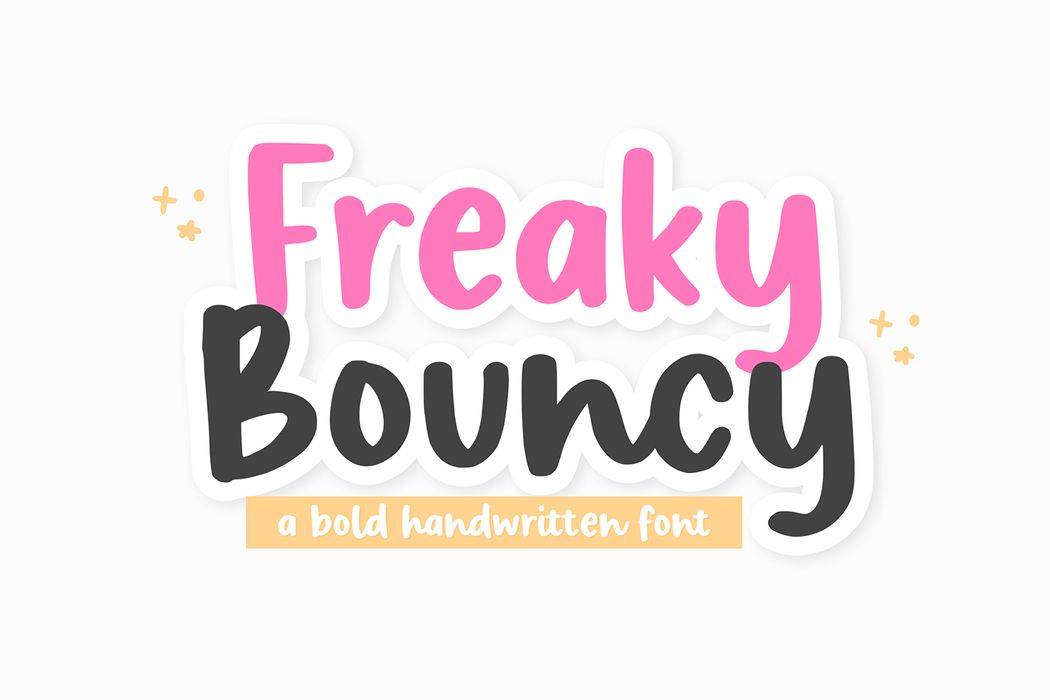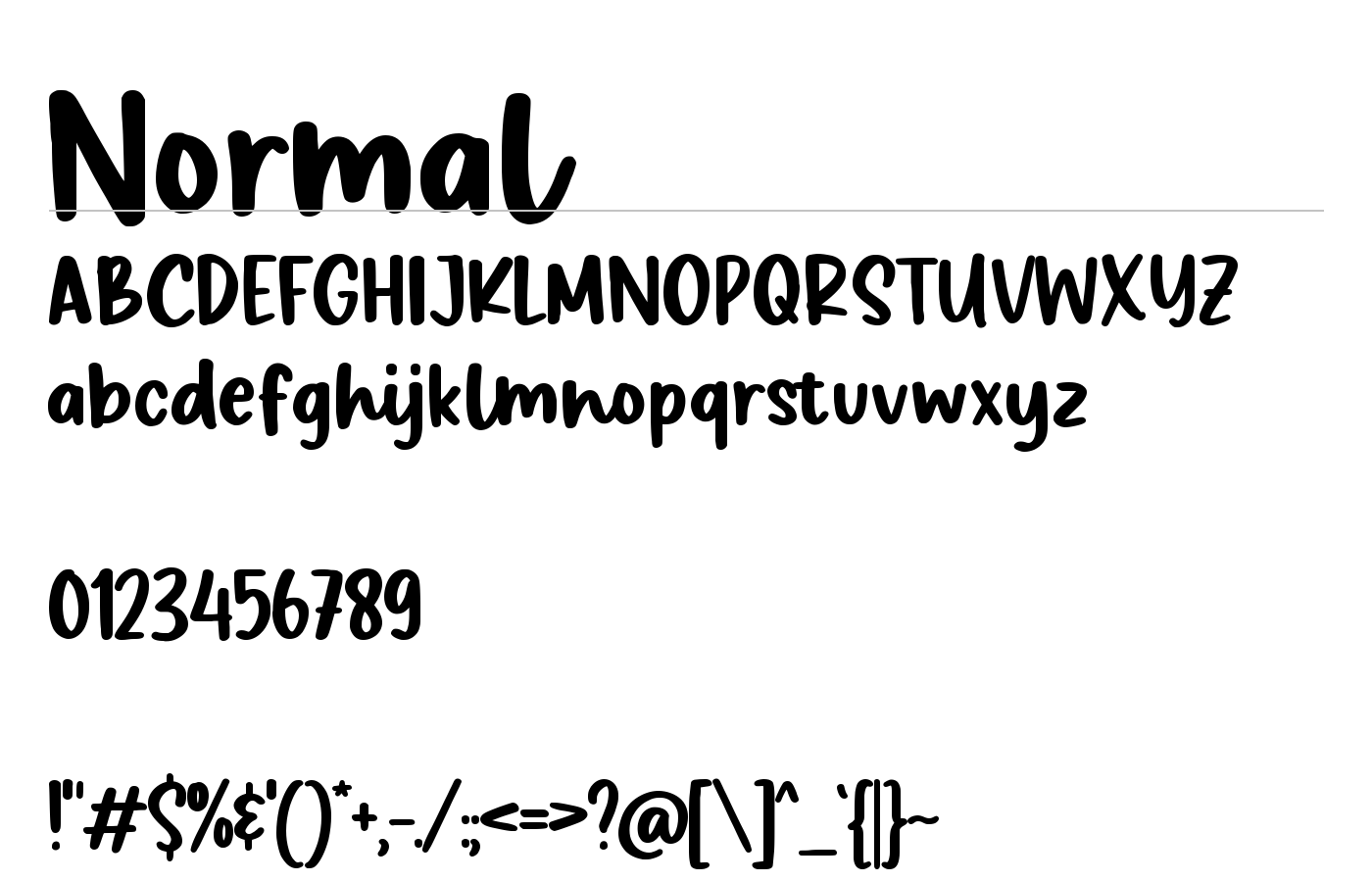
Freaky Bouncy Font is a playful, casual handwritten typeface characterized by its rounded, irregular letterforms and lively, bouncy rhythm. Its medium weight, moderately tall x-height, and slightly condensed width create a friendly and approachable feel, making it perfect for fun, informal designs like kids’ products, party invitations, or social media graphics. This font’s energetic style adds a unique personality that works best in headlines and decorative text, bringing warmth and cheerfulness to any creative project.
Freaky Bouncy Font
About Freaky Bouncy Font